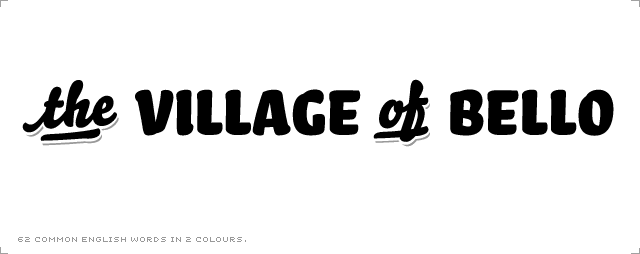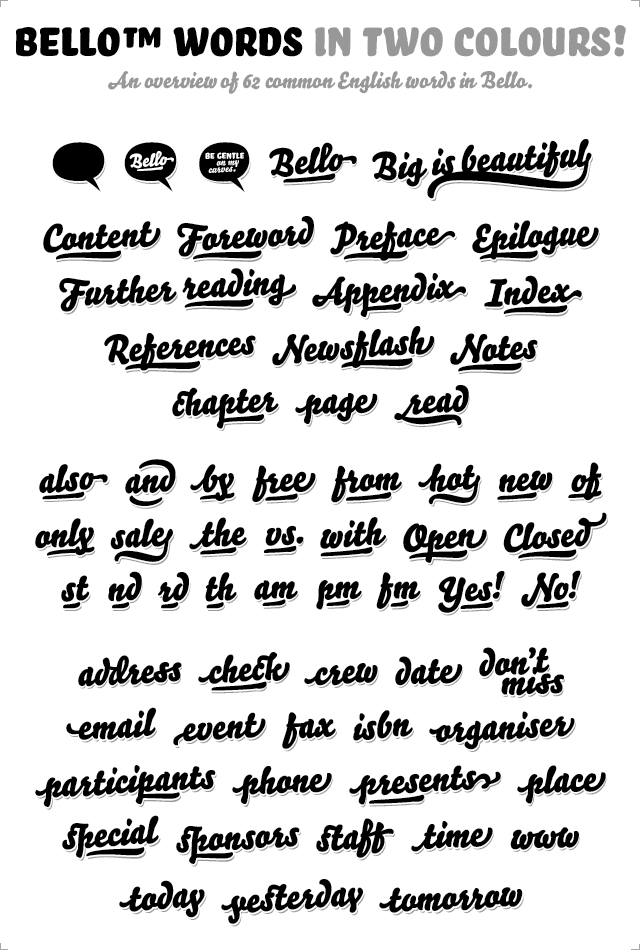
Bello words
Bello Words is a two-coloured set of 62 common English words. Set them between Bello Script or Small Caps to add extra interest to your layouts.
You can use these words either in one colour, or you can give the foreground and background different colours.
How-to Bello Words
Overview of all 62 pre-designed words